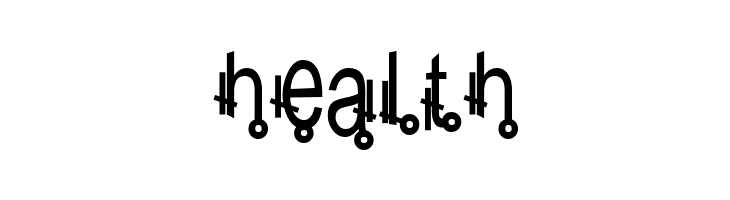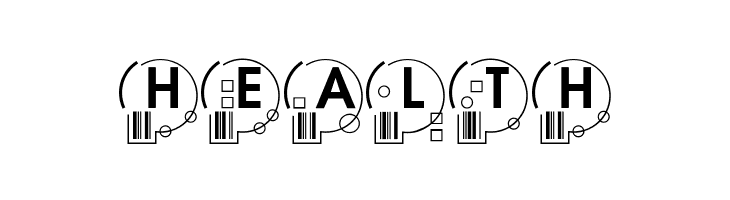
• LinoCapsAR
A bold, playful font with hand-drawn, circular characters.
• QuasiModoButtons
A bold, gothic-style font with jagged circular outlines for each character.
• Matonomannaka
• GothicLetters
A decorative Gothic font with ornate, high-contrast characters encased in circles.
• TypoGhosts
A decorative font with ghostly, intricate linework within bold circular forms.
• ChainsawGeometric
A bold, geometric font with sharp angles and circular shapes.
• HeadfeeterOTwo
A decorative and abstract font with characters in circular shapes, featuring geometric patterns.
• Ovulution I Ovum
Intricate, abstract circular patterns with spiky, geometric designs.
• MKMouseworxTwo
Abstract illustrations in circular and square frames, not a traditional font.
• ToscanButtons
A decorative font with characters enclosed in circular outlines, featuring a vintage and artistic style.